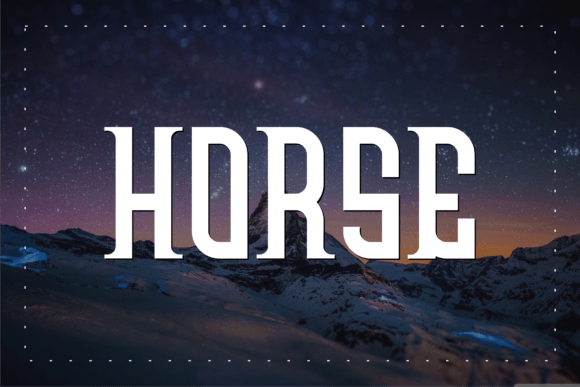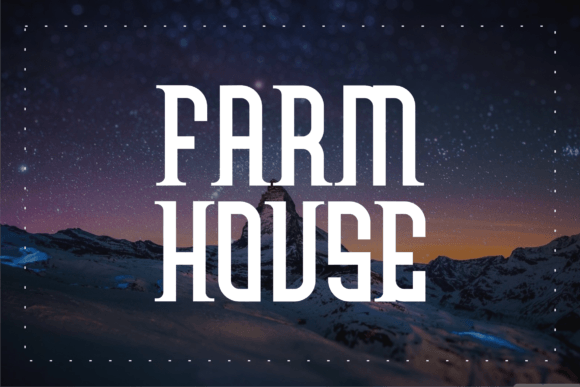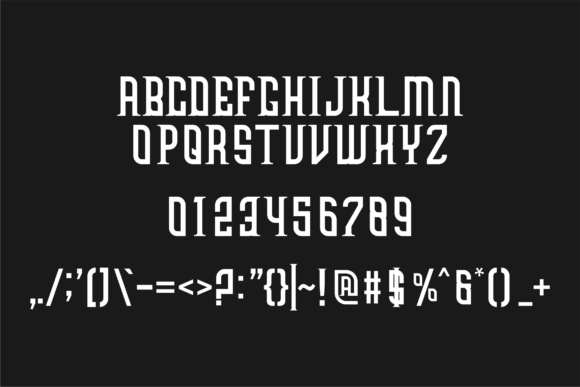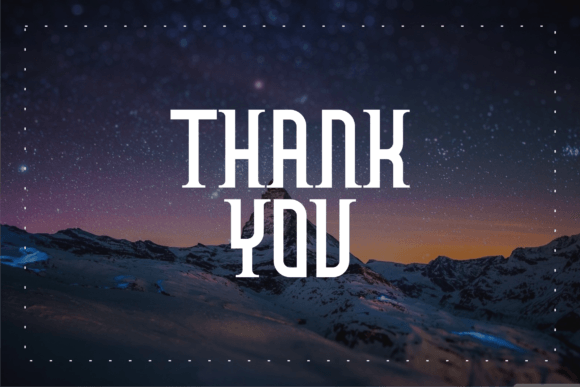
Aurix Font: Elevate Your Designs with Luxury and Elegance
In the world of typography, fonts play a crucial role in conveying the tone and personality of a design. For designers and crafters looking to add a touch of luxury and sophistication to their work, the Aurix font is an excellent choice. This modern, elegant, and stylish slab serif font is designed to instantly elevate your designs and leave a lasting impression.
What is Aurix Font?
Aurix is a slab serif font that exudes elegance and refinement. Its clean lines, precise curves, and carefully crafted details make it a versatile and sophisticated typeface. The font’s design is characterized by its sturdy serifs, which provide a sense of stability and luxury, while its sleek and streamlined appearance ensures that it remains modern and fresh.
Key Features of Aurix Font
- Modern and Elegant Design: Aurix boasts a contemporary design that is both stylish and sophisticated, making it perfect for high-end designs.
- Slab Serif Typeface: The font’s slab serif design provides a sense of luxury and refinement, while its clean lines and precise curves ensure that it remains highly legible.
- Versatile and Adaptable: Aurix is a versatile font that can be used in a wide range of design applications, from branding and advertising to packaging and digital media.
- Highly Legible: The font’s careful attention to detail and precise craftsmanship ensure that it remains highly legible, even at small sizes.
How to Use Aurix Font in Your Designs
Aurix is an incredibly versatile font that can be used in a wide range of design applications. Here are a few ideas to get you started:
- Branding and Logo Design: Use Aurix to create a luxurious and sophisticated brand identity that will help your business stand out.
- Advertising and Marketing: Add a touch of elegance and refinement to your advertising and marketing materials with Aurix.
- Packaging Design: Use Aurix to create eye-catching and luxurious packaging that will help your products stand out on store shelves.
- Digital Media: Aurix is perfect for use in digital media, including websites, social media graphics, and email marketing campaigns.
Benefits of Using Aurix Font
There are many benefits to using Aurix in your designs, including:
- Instant Luxury Appeal: Aurix instantly adds a touch of luxury and sophistication to your designs, helping you to create a high-end look and feel.
- Improved Legibility: The font’s careful attention to detail and precise craftsmanship ensure that it remains highly legible, even at small sizes.
- Versatility: Aurix is a versatile font that can be used in a wide range of design applications, making it a great addition to any designer’s toolkit.
| Author | riotama85 |
In conclusion, Aurix is a modern, elegant, and stylish slab serif font that is perfect for designers and crafters looking to add a touch of luxury and sophistication to their work. With its clean lines, precise curves, and carefully crafted details, Aurix is a versatile and sophisticated typeface that can be used in a wide range of design applications. Whether you’re looking to create a luxurious brand identity, eye-catching packaging, or high-end advertising materials, Aurix is an excellent choice.